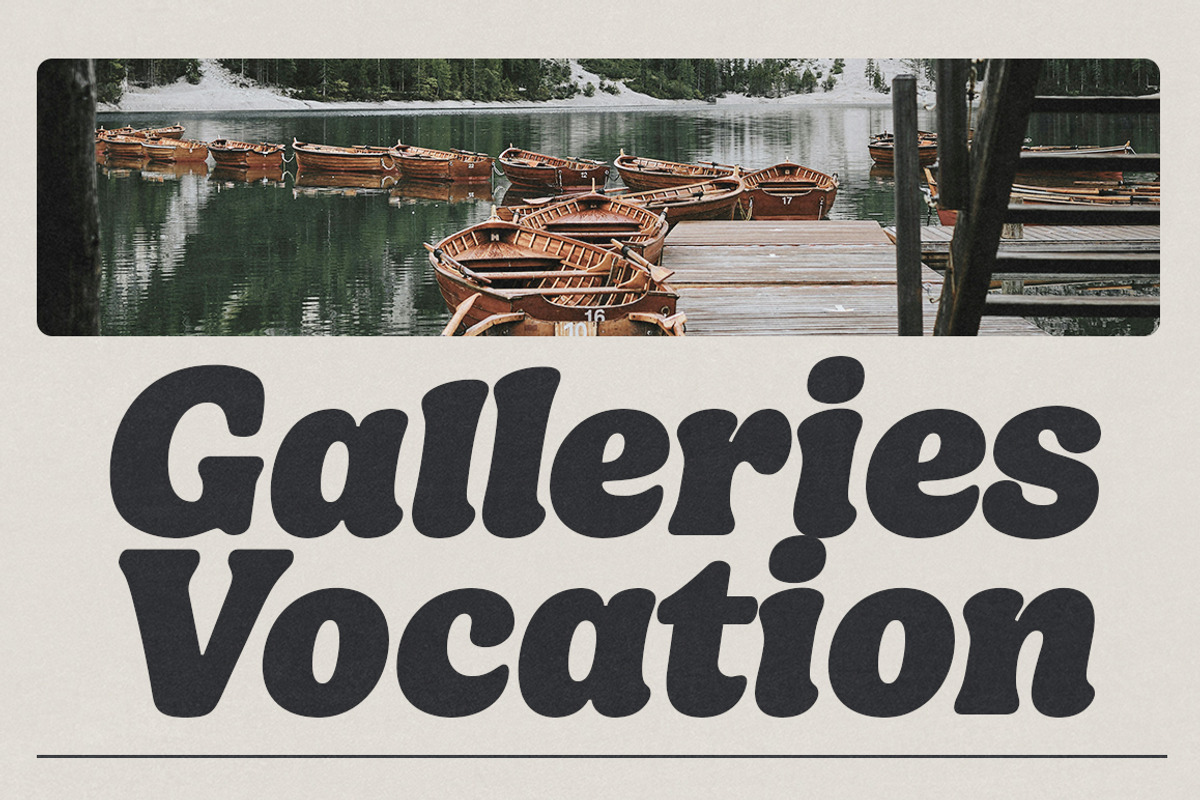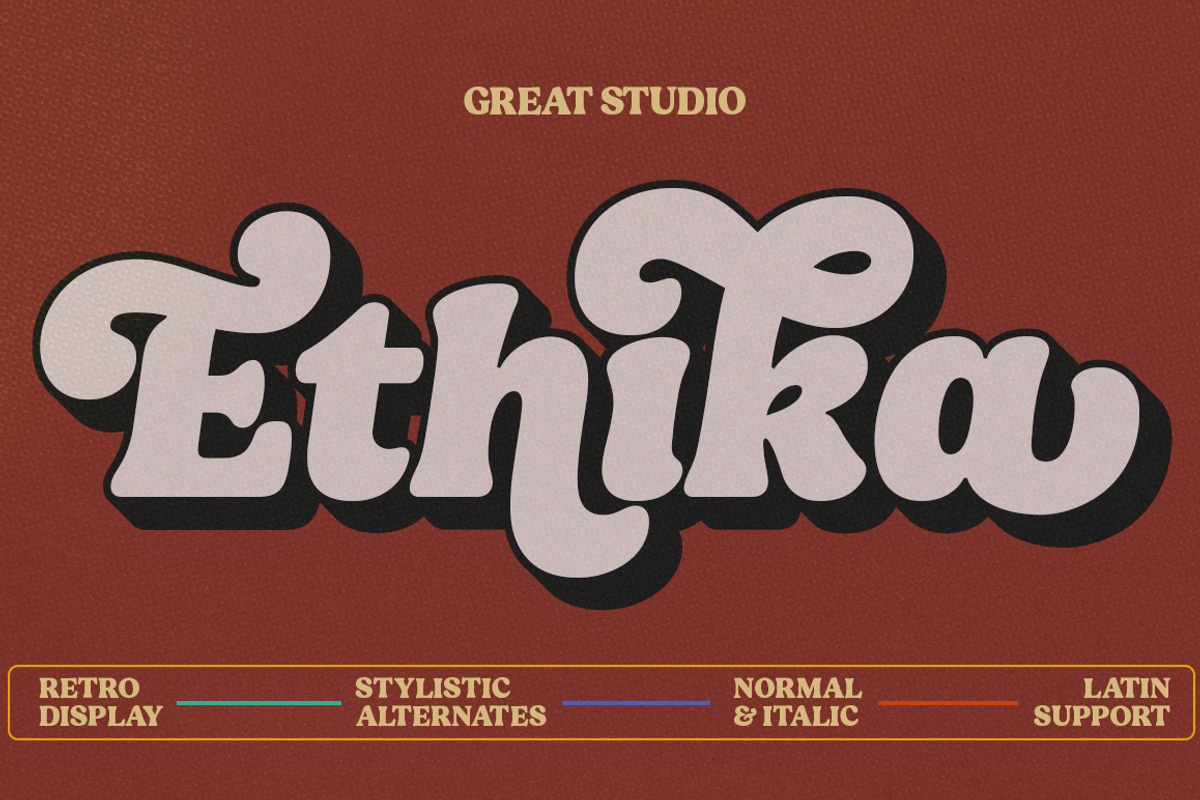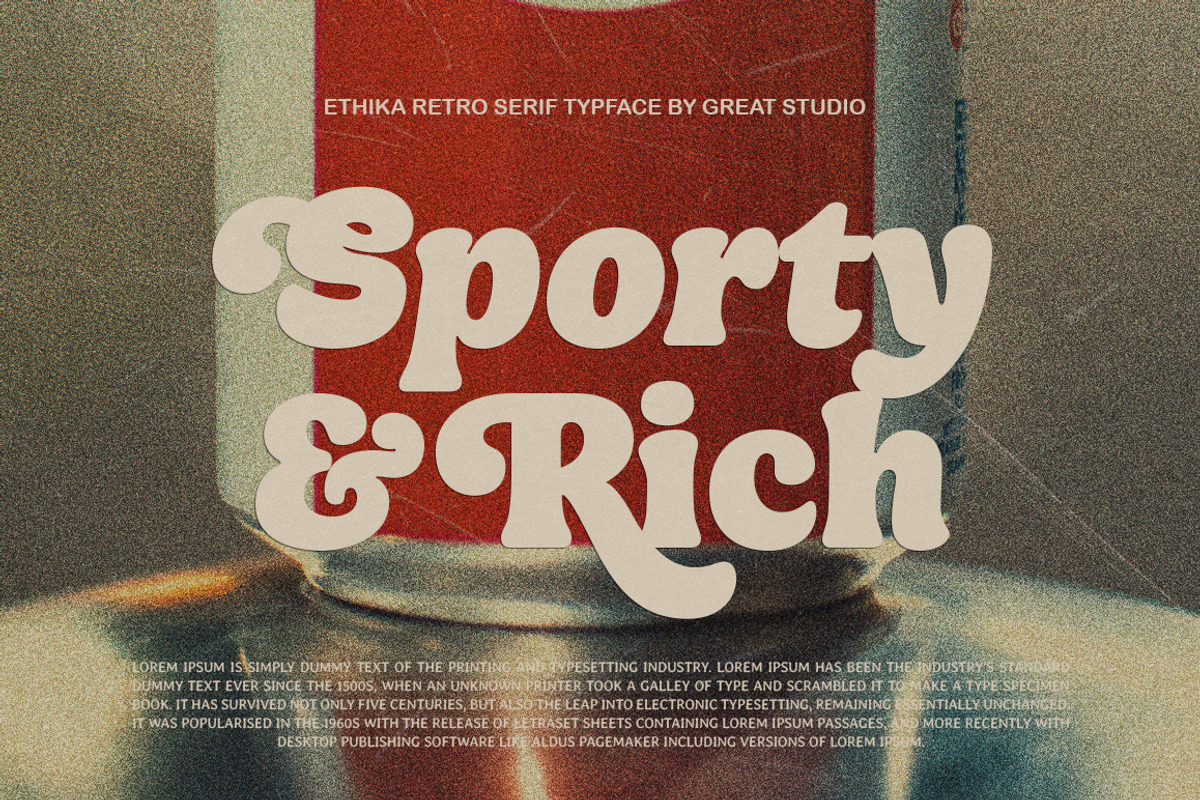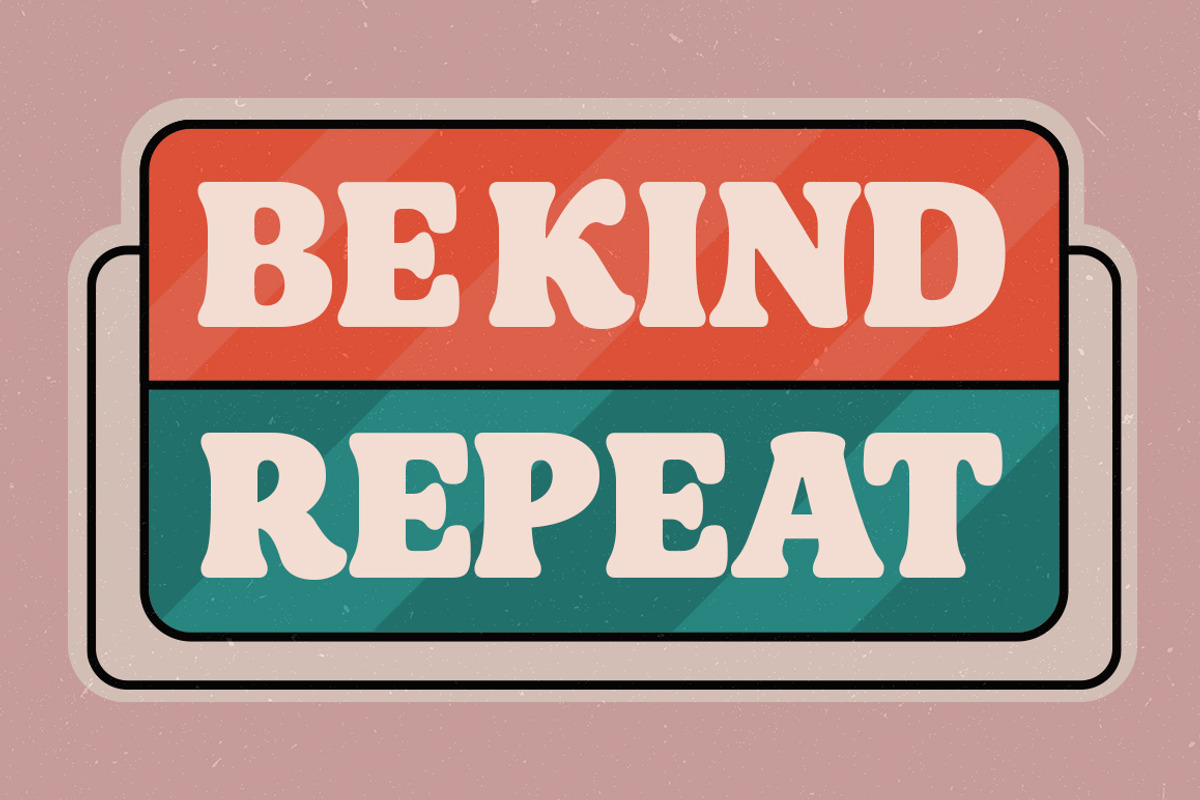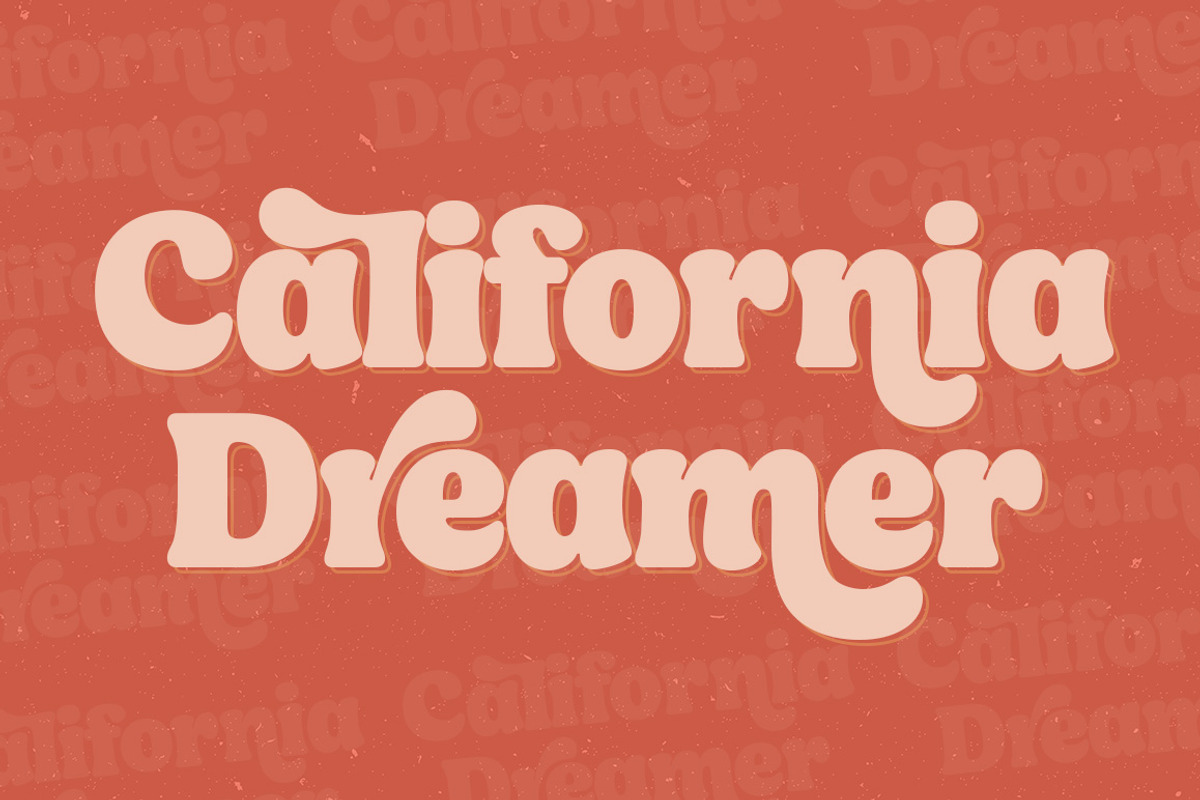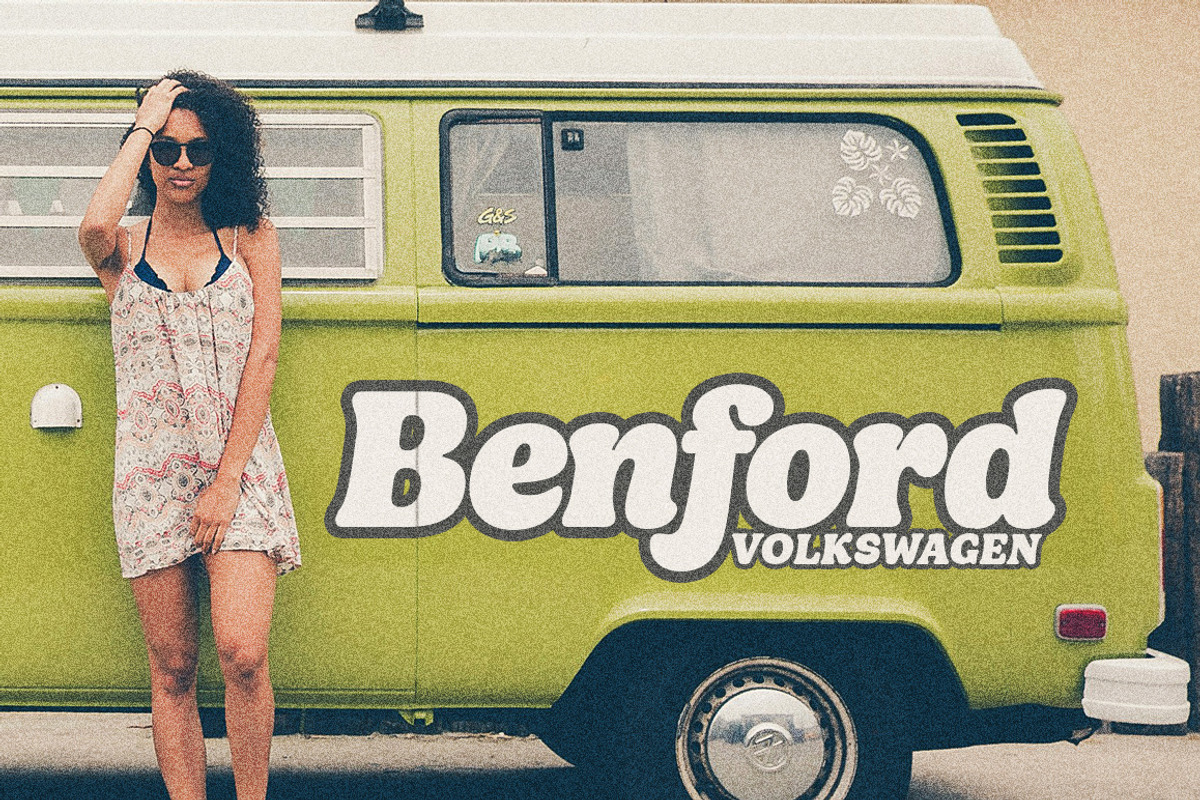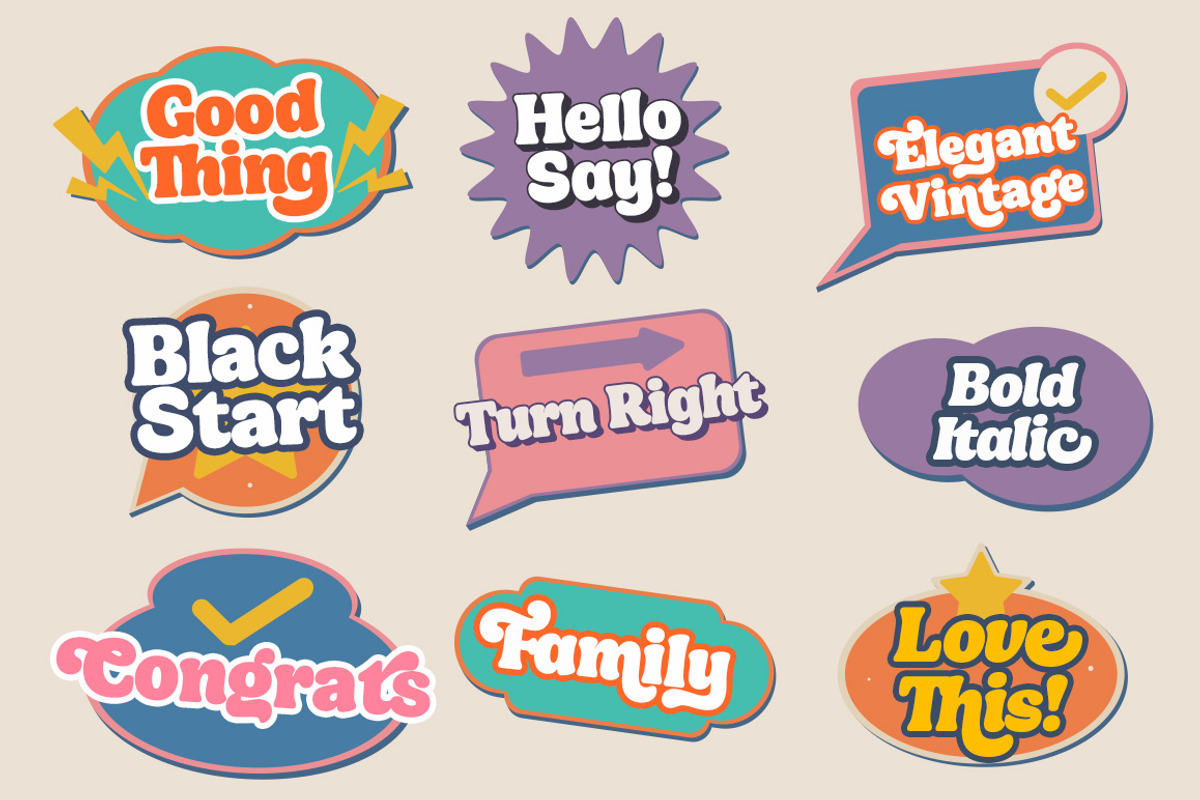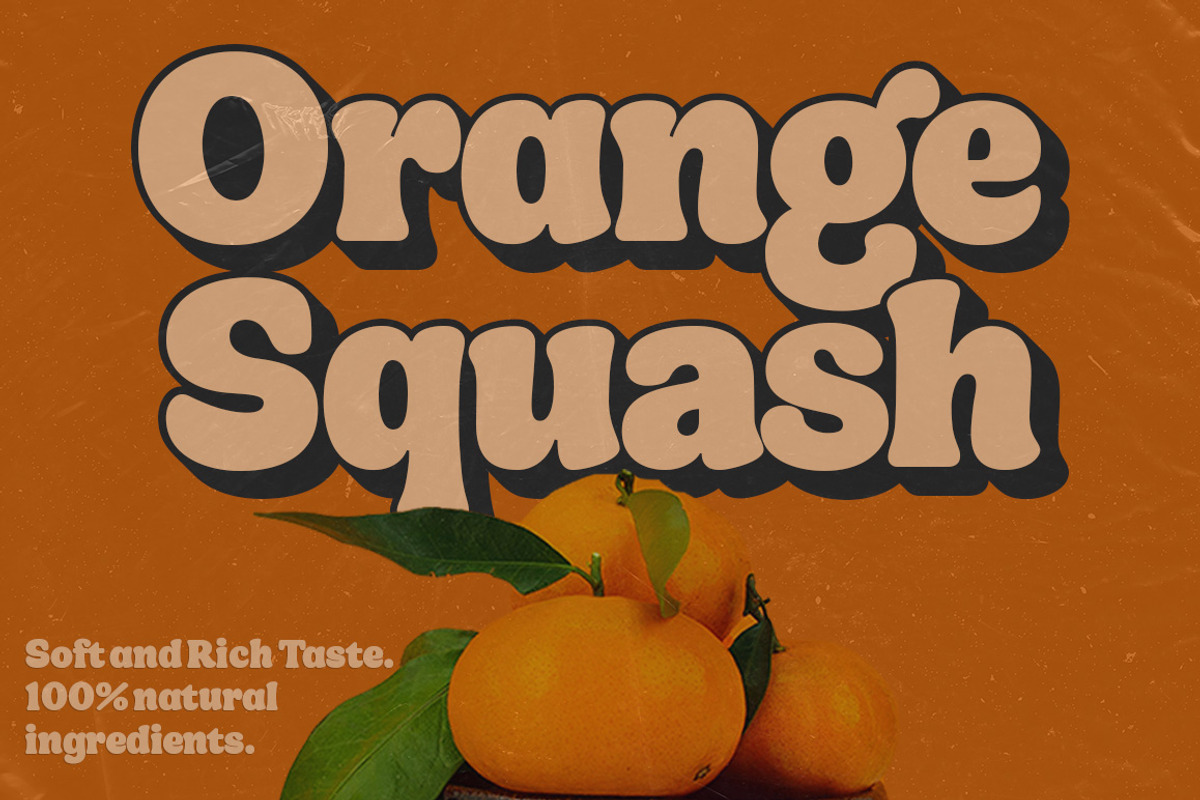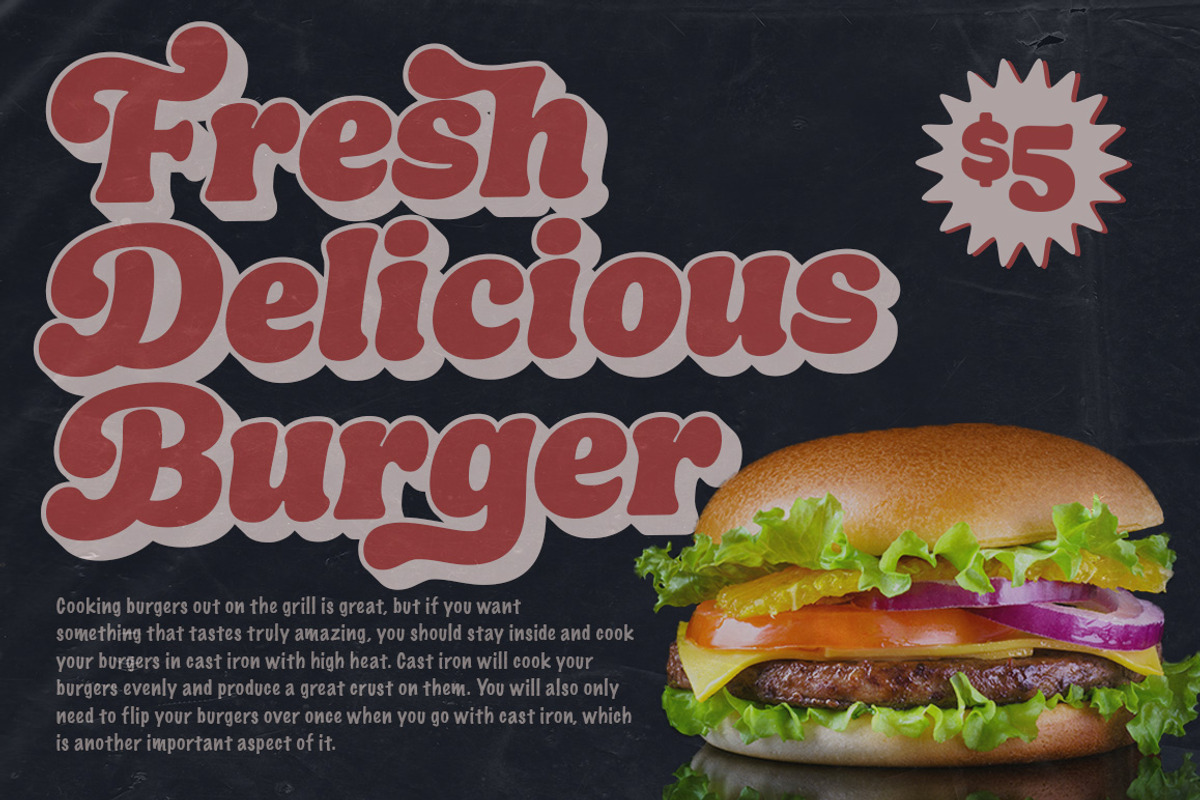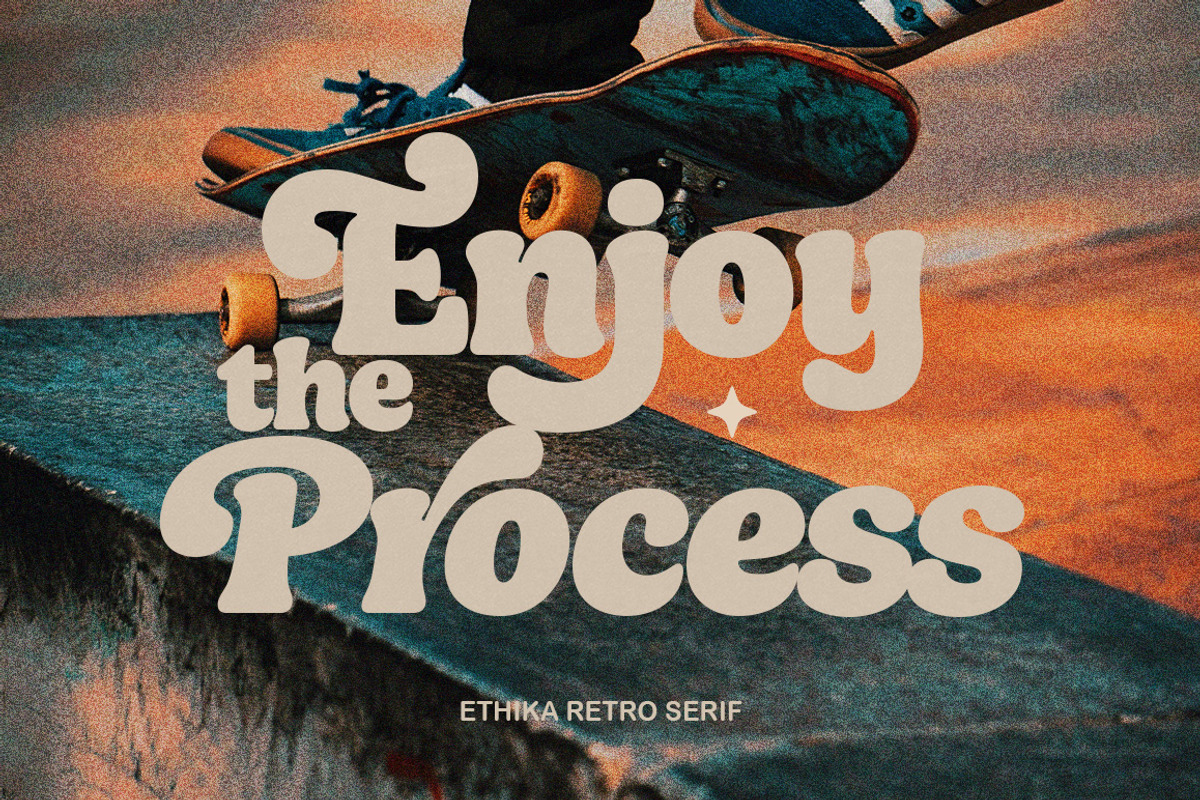
Ethika - Retro Serif Font
Ethika is a bold and black retro font style. This bold retro serif font combines the elegant character of classic serif style with a thick, daring presence that leaves a strong, lasting impression. With sharp letter edges and bold proportions, this font radiates a nostalgic aura from the '60s and '70s, yet still presents a modern, relevant touch. Each letter is meticulously crafted, achieving a perfect balance between elegance and visual strength. Ideal for designs that need a vintage touch with personality, such as titles, logos, branding projects, packaging, magazine headings, posters, and advertisements. Its prominent thickness makes the font easy to read and highly effective in capturing attention, all while evoking a timeless, classic atmosphere.
This font is well-suited for a variety of creative contexts, from bold typographic designs to modern applications with a rich retro feel.
A number of Opentype and ligature alternatives turn it into full retro mode. It also comes in Italic and Extrude versions. this makes it easy for you to design with love.